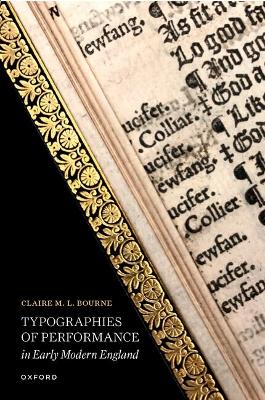
Explores typographic display and experimentation in printed play-texts from the fourteenth to the eighteenth centuries and interprets features of page display (particularly special characters, scene division, punctuation, and illustration) as a means of communicating and expressing aspects of dramatic performance to readers.
Typographies of Performance in Early Modern England is the first book-length study of early modern English playbook typography. It tells a new history of drama from the period by considering the page designs of plays by Shakespeare and others printed between the end of the fifteenth century and the beginning of the eighteenth century. It argues that typography, broadly conceived, was used creatively by printers, publishers, playwrights, and other agents of the book trade to make the effects of theatricality--from the most basic (textually articulating a change in speaker) to the more complex (registering the kinesis of bodies on stage)--intelligible on the page.
The coalescence of these experiments into a uniquely dramatic typography that was constantly responsive to performance effects made it possible for 'plays' to be marketed, collected, and read in the sixteenth and seventeenth centuries as a print genre distinct from all other genres of imaginative writing. It has been said, 'If a play is a book, it is not a play.' Typographies of Performance in Early Modern England shows that 'play' and 'book' were, in fact, mutually constitutive: it was the very bookishness of plays printed in early modern England that allowed them to be recognized by their earliest readers as plays in the first place.
This is an authoritative intervention in bibliography and literary history, as well as being a hymn to the craft of early modern printing. * Alice Leonard, Times Literary Supplement * This is an unequivocally important book that is underpinned by exemplary research. * Ben Higgins, The Library 23.2 * Just as learning a new word causes one to see it everywhere, Claire M. L. Bourne's Typographies of Performance in Early Modern England spotlights the printed symbols and complex textual arrangements that pervade early modern printed plays, but which modern scholars and editors usually overlook or misunderstand, demonstrating their importance for making theatrical forms legible as dramatic texts for reading. After reading this meticulously researched, highly informative, and wide reaching monograph, scholars and editors will appreciate early modern playbooks in a new light: you cannot unsee Typographies of Performance's indelible insights, nor would you ever want to. * Heidi Craig, Philological Quarterly 100.2 * Bourne's book succeeds in defamiliarising typography to the point that we can appreciate its workings anew, not as a barrier to the study of early modern drama but a bridge. * Derek Dunne, Renaissance Studies 36.3 * Typographies of Performance in Early Modern England is a model of excellent scholarship: predicated on impressive research, it outlines important arguments in clear and graceful writing. * Laura Estill, Seventeenth-Century News * This capacious, thoughtful work allows readers to conceive of the possibilities of new scholarship in the history of early modern English playbooks. Because Bourne regards the members of the early English book trade with grace, she releases them from the burden of habitual faultiness. She initiates a truly fantastic way of approaching playbooks that prioritizes 'readerly access to these forms of theatricality rather than foreclosing the chance to experience their effects'. * Brandi K. Adams, Early Theatre *
Introduction: A Play and No Play
1: Dramatic Pilcrows
2: Jonson's Breaches and the Typography of Action
3: Making a Scene
4: Plot Illustrated
5: Scene Changes
Coda: A Prolusion on Dramatic Typography